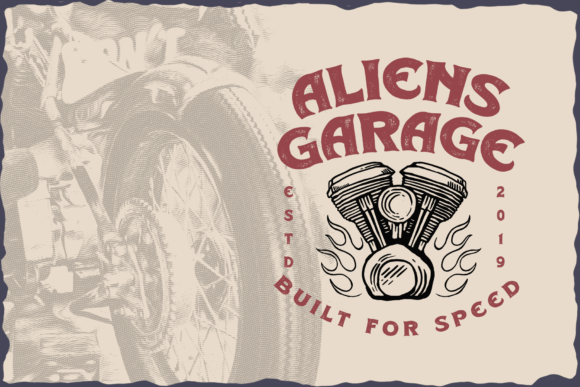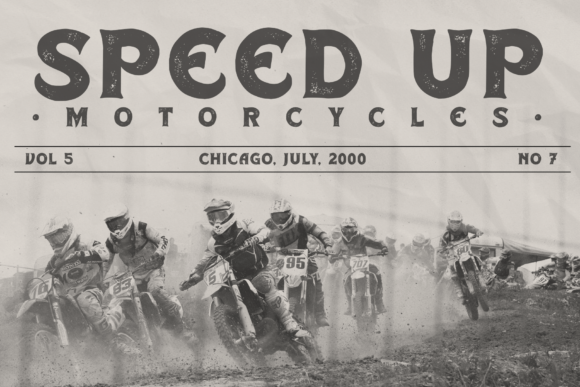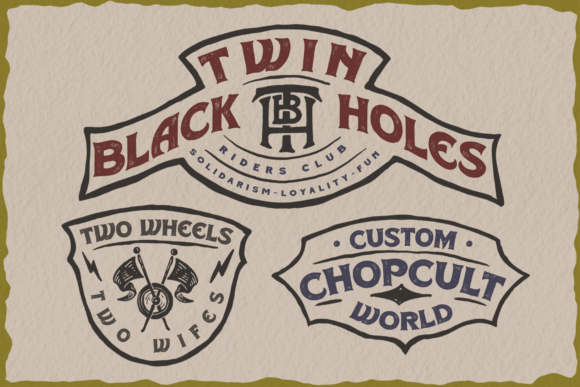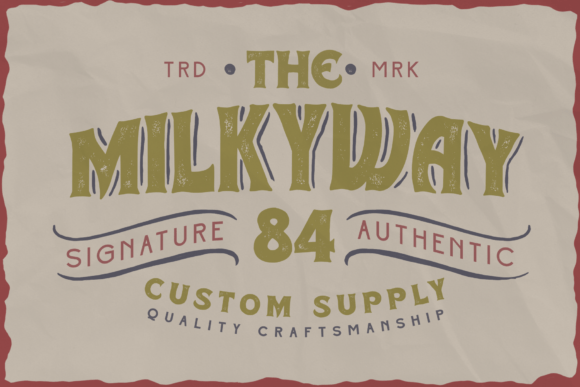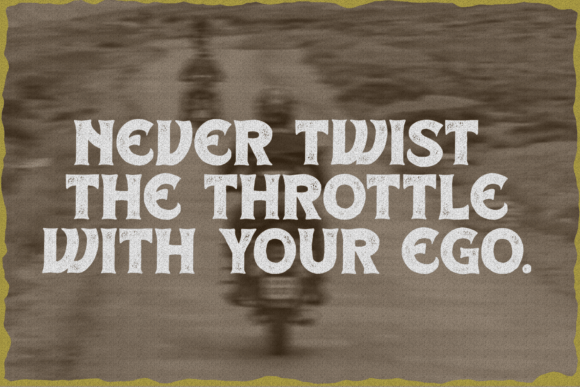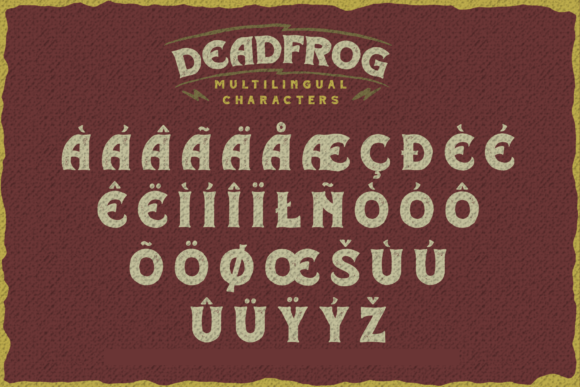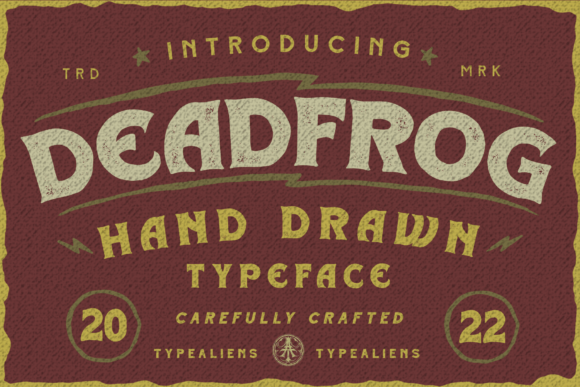
Introducing Deadfrog Font: The Ultimate Vintage Choice for Designers and Crafters
In the world of typography, fonts play a crucial role in conveying the tone and aesthetic of a design. For designers and crafters looking for a vintage, bold, and eye-catching font, Deadfrog Font is an excellent choice. This simple yet classic font is perfect for supporting designs related to motorcycle customs, magazine headlines, posters, and more.
What is Deadfrog Font?
Deadfrog Font is a super bold serif font that has been given a grunge texture effect, resulting in a unique vintage look. The base font is classic and straightforward, but the addition of the grunge texture gives it a distinctive, worn feel that adds character and depth to any design. This font is ideal for designers who want to add a touch of nostalgia and ruggedness to their work.
Characteristics of Deadfrog Font
So, what makes Deadfrog Font stand out from other fonts? Here are some of its key characteristics:
- Super bold serif font: The base font is strong and sturdy, making it perfect for headlines and titles.
- Grunge texture effect: The grunge texture adds a worn, vintage feel to the font, giving it a unique character.
- Vintage look: The combination of the bold serif font and grunge texture effect gives Deadfrog Font a distinctive vintage aesthetic.
- Classic and simple: Despite its bold and grungy texture, the font is classic and straightforward, making it versatile and easy to use.
Use Cases for Deadfrog Font
Deadfrog Font is a versatile font that can be used in a variety of design projects. Here are some use cases where this font shines:
- Motorcycle custom designs: The vintage look and bold font make Deadfrog Font perfect for designs related to motorcycle customs, such as logos, posters, and flyers.
- Magazine headlines: The font’s bold and eye-catching design makes it ideal for magazine headlines, adding a touch of nostalgia and sophistication to any publication.
- Posters and flyers: Deadfrog Font is perfect for creating bold and eye-catching posters and flyers for events, promotions, or products.
- Vintage-style designs: The font’s unique vintage aesthetic makes it suitable for designs that require a nostalgic or retro look, such as branding, packaging, or advertising.
Tips for Using Deadfrog Font
To get the most out of Deadfrog Font, here are some tips to keep in mind:
- Use it boldly: Deadfrog Font is a bold font, so use it boldly to make a statement in your design.
- Experiment with colors: The font’s vintage look lends itself well to earthy tones and muted colors, but feel free to experiment with different colors to find the perfect combination.
- Pair it with contrasting fonts: Deadfrog Font works well with contrasting fonts, such as sans-serif fonts or script fonts, to create visual interest and hierarchy.
In conclusion, Deadfrog Font is a unique and versatile font that is perfect for designers and crafters looking for a vintage, bold, and eye-catching font. Its super bold serif font and grunge texture effect give it a distinctive vintage aesthetic that is suitable for a variety of design projects, from motorcycle custom designs to magazine headlines and posters. With its classic and simple base font, Deadfrog Font is easy to use and can be paired with contrasting fonts to create visual interest and hierarchy. So, if you’re looking for a font that adds a touch of nostalgia and ruggedness to your design, Deadfrog Font is an excellent choice.